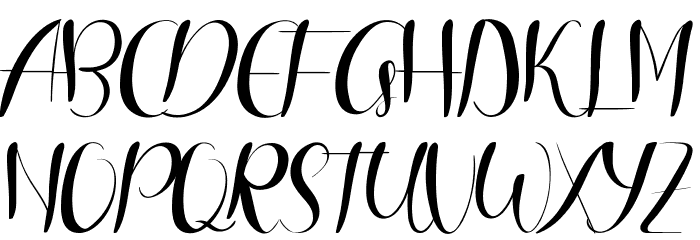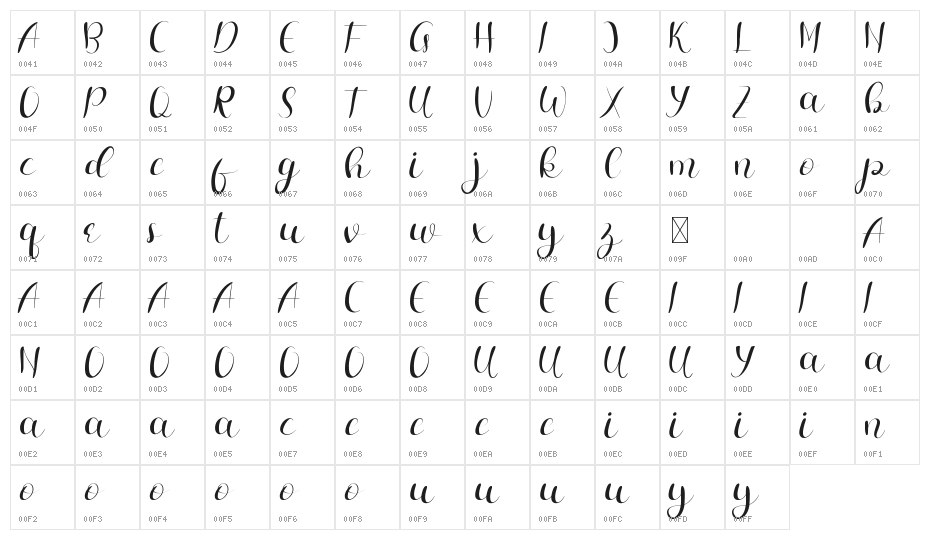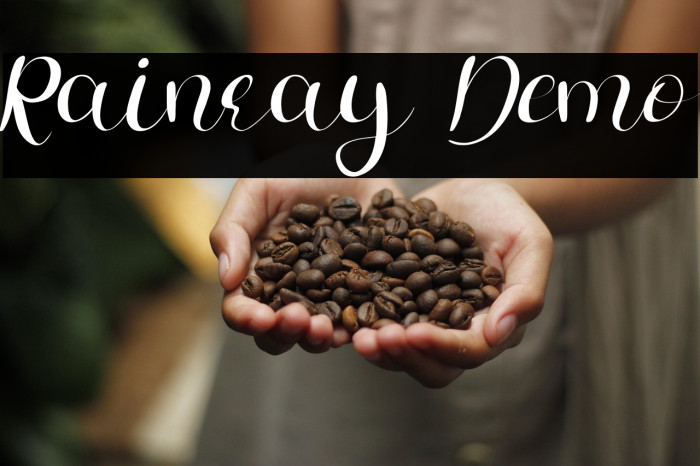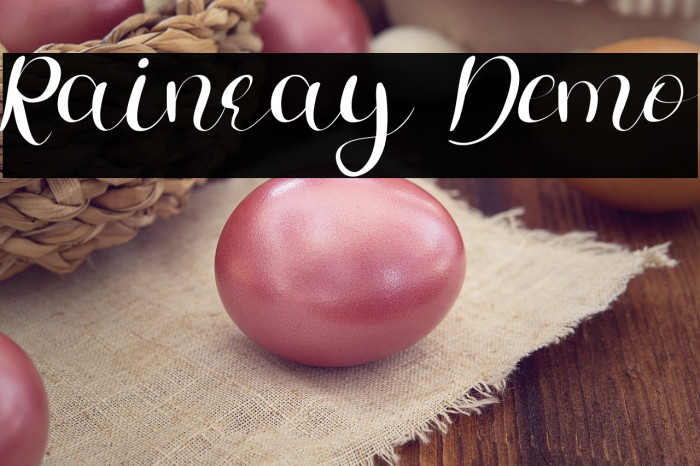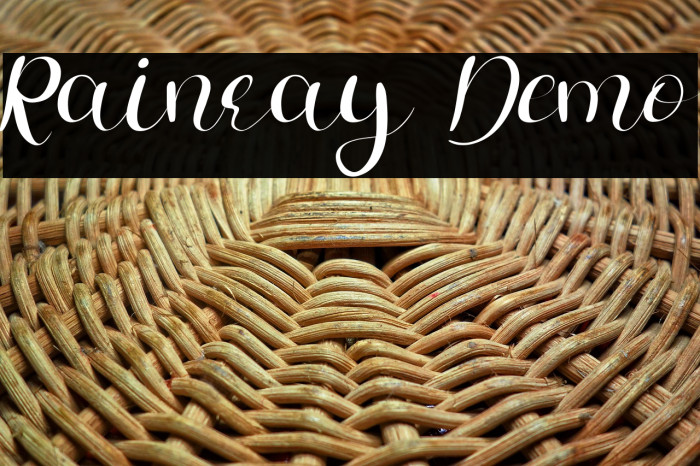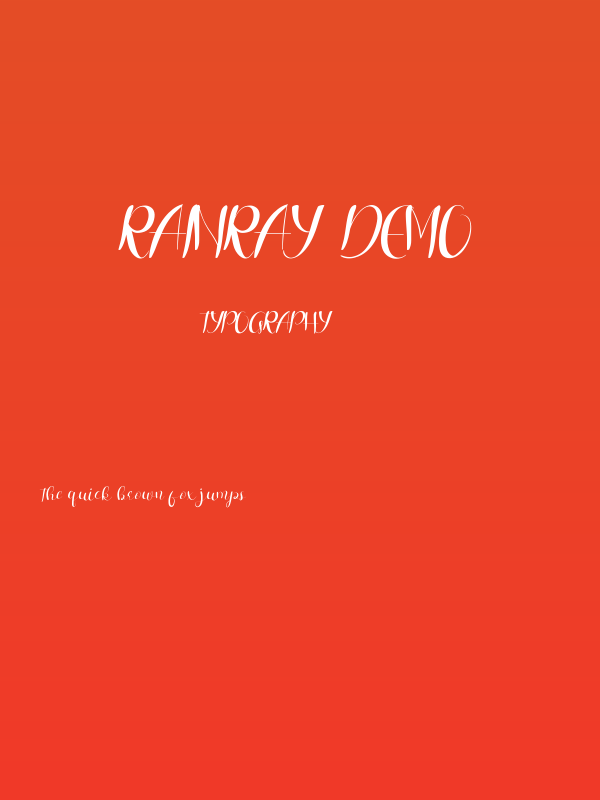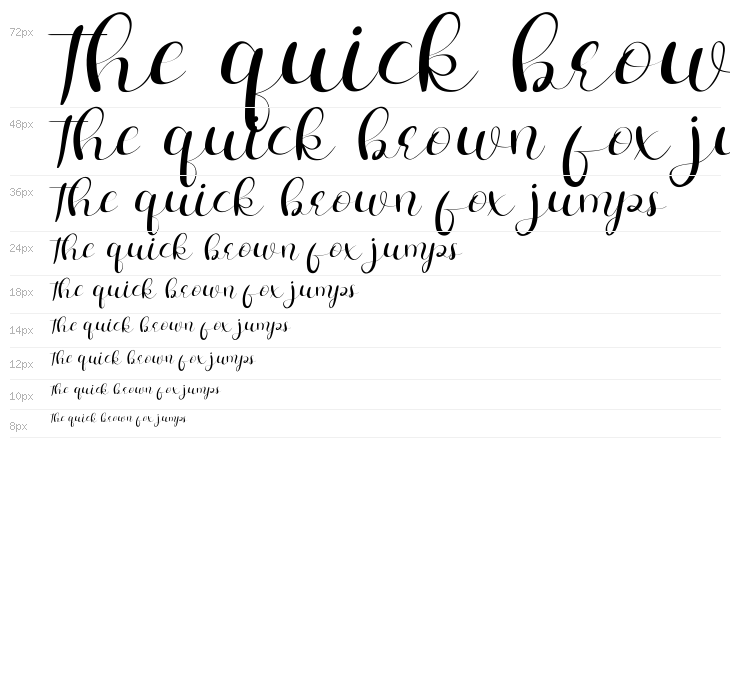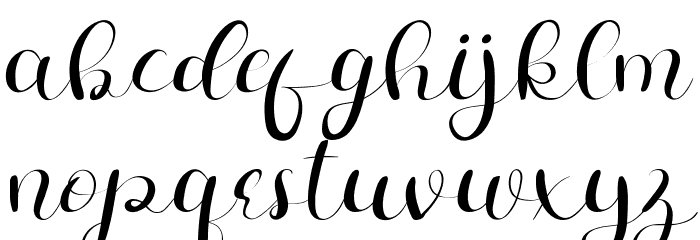
Rainray Demo Font
Rainray Demo Description
This font features an elegant and flowing script style, characterized by its smooth, cursive lines and graceful curves. The uppercase letters are bold and sweeping, with a sense of movement and fluidity, while the lowercase letters maintain a consistent, harmonious flow. The strokes vary in thickness, providing a dynamic contrast that enhances its decorative appeal. The font exudes a sense of sophistication and is well-suited for formal invitations, branding, and artistic projects. Its unique style captures attention with its artistic flair, making it ideal for designs that require a touch of elegance and creativity.
| Proposed Projects | Ideal for wedding invitations, branding, artistic projects, and elegant designs. |